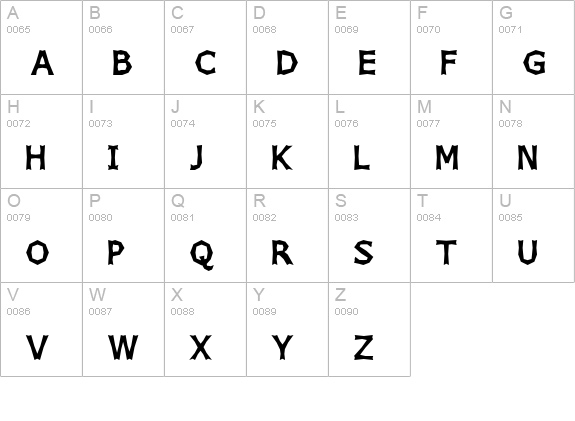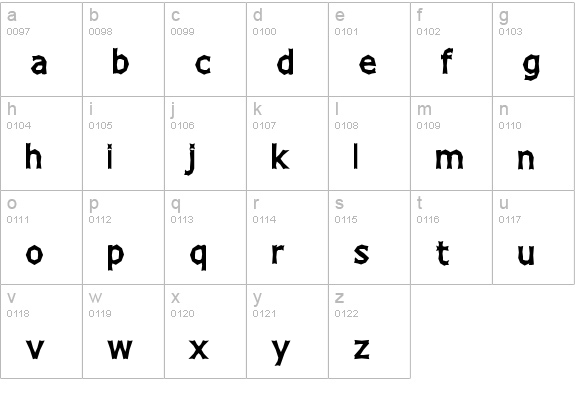
Chizzler Bold Font Details
Chizzler Bold is a strong, high-contrast variant in the Chizzler typeface family \xE2\x80\x94 well suited to headlines, attention-grabbing titles, and strong calls-to-action.
Chizzler Bold font is a striking and versatile typeface that exudes a sense of boldness and creativity. With its unique blend of sharp edges and smooth curves, this font is perfect for making a statement in any design project. Whether you're looking to add a touch of modernity to your branding, posters, or website, Chizzler Bold font is sure to stand out. This font is freely available to download at FontsMarket.com, making it accessible to designers and creators looking to add a touch of flair to their work. With its bold and impactful appearance, Chizzler Bold font is a great choice for those who want to make a lasting impression. Get your hands on this eye-catching font today and take your designs to the next level!